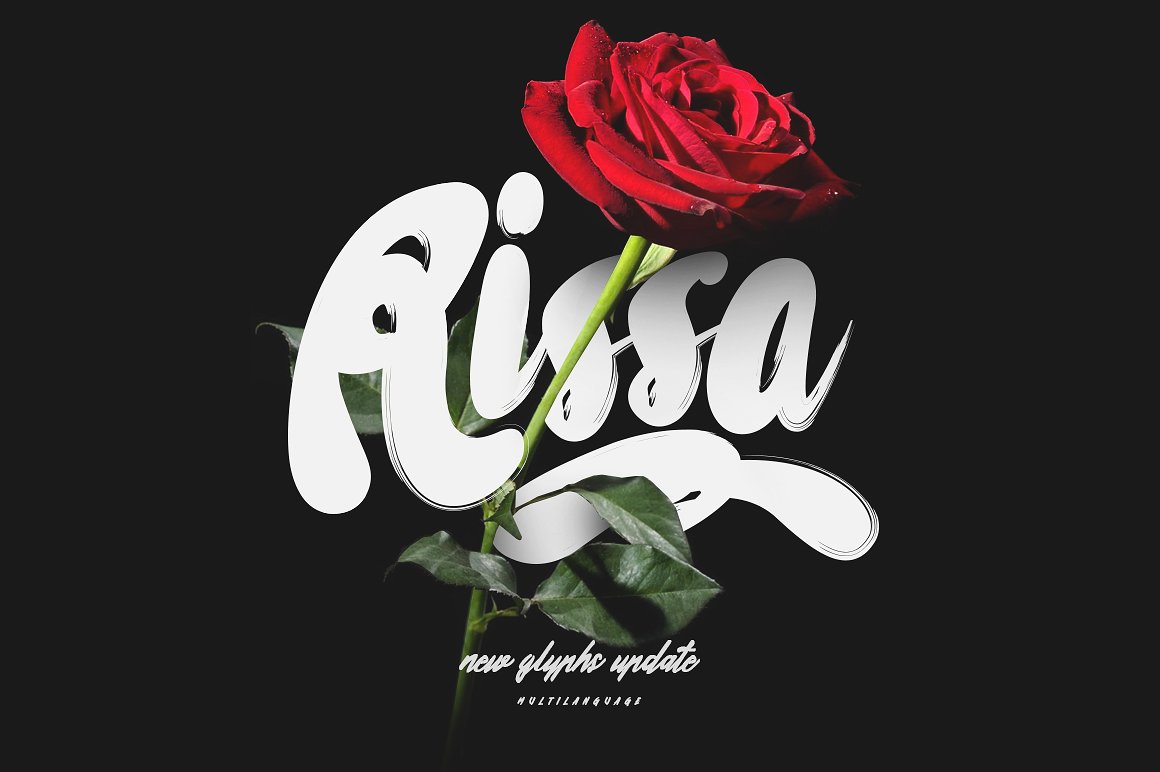
Rissa Brush
Rissa Brush Font
Give your designs an authentic brush handcrafted feel. “Rissa Typeface” is perfectly suited to stationery, logos and much more.
Give your designs an authentic brush handcrafted feel. “Rissa Typeface” is perfectly suited to stationery, logos and much more.